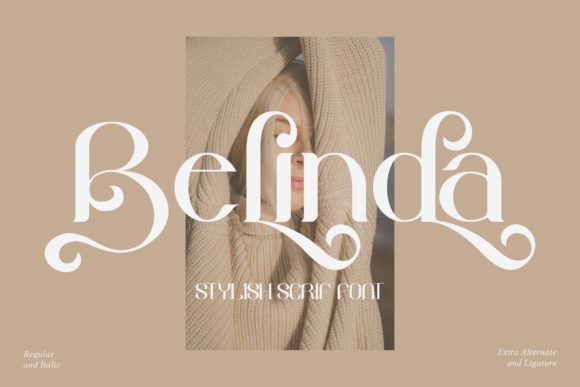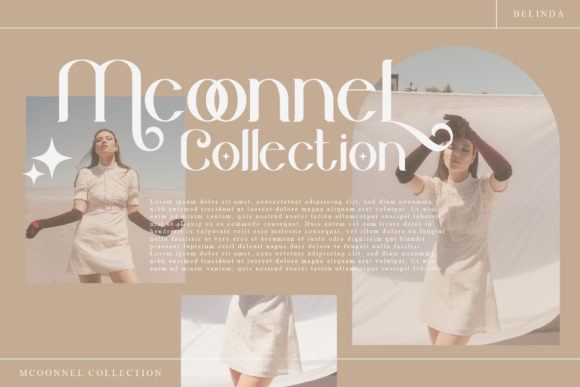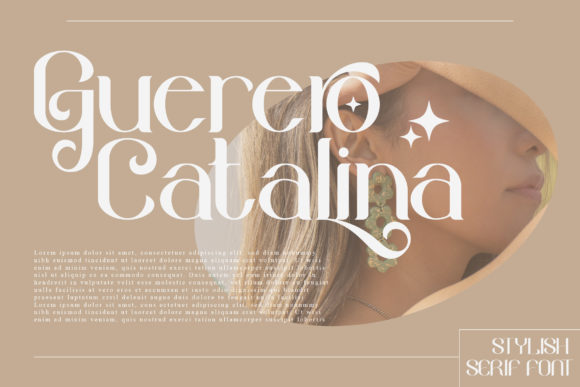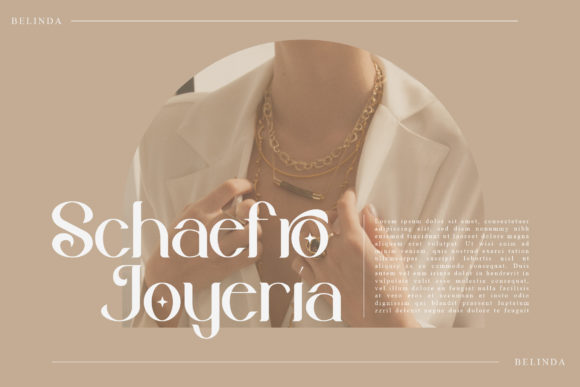
Belinda Font
Belinda is a modern and classic slab serif font with a unique style & modern look.This typeface is perfect for an elegant & luxury logo, book or movie title design, fashion brand, magazine, clothes, lettering, quotes, and so much more.This font is PUA encoded, which means you can access all of the glyphs and swashes with ease!